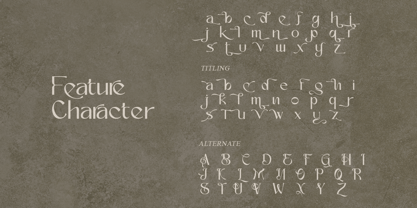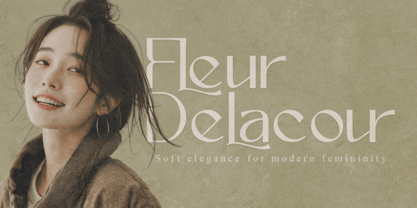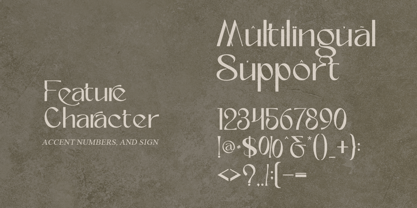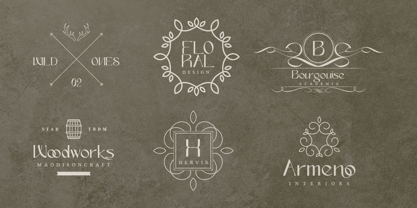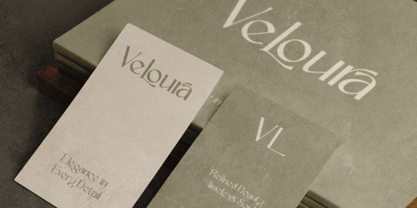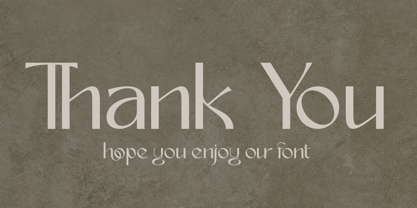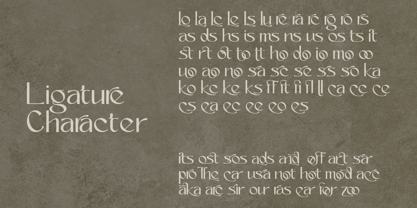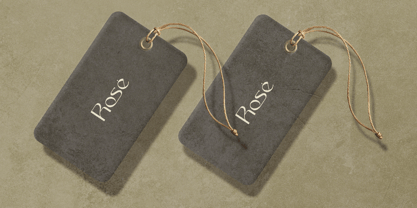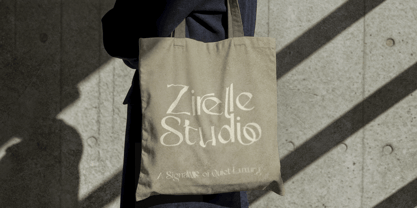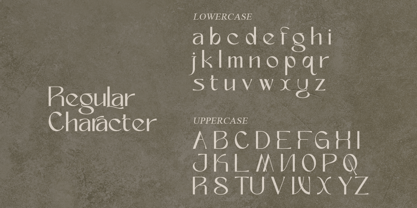
Lunavera
Lunavera is a refined luxury editorial serif font created for elegant branding, sophisticated publications, and timeless visual identities. Its graceful curves, high-contrast letterforms, artistic details, and distinctive proportions bring a polished, fashion-forward presence to every composition.
Inspired by luxury magazines, contemporary fashion, premium beauty brands, and timeless editorial typography, Lunavera balances classic elegance with a modern artistic character. The result is a memorable display typeface that feels sophisticated, expressive, and effortlessly stylish.
Lunavera is especially effective for luxury logos, fashion branding, beauty and skincare packaging, perfume labels, magazine covers, jewelry branding, book titles, and premium advertising.